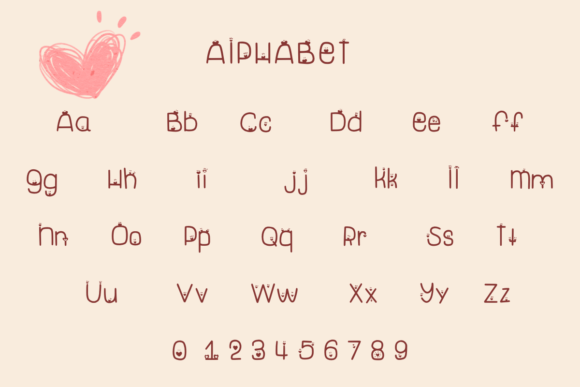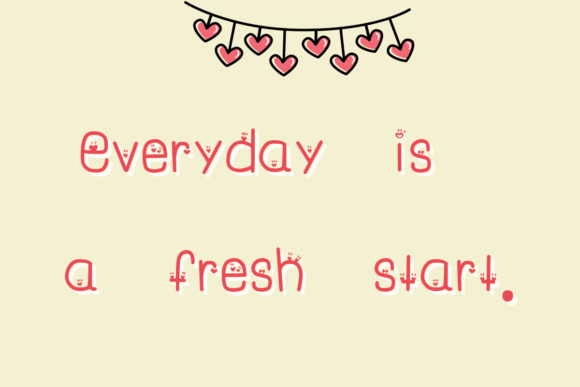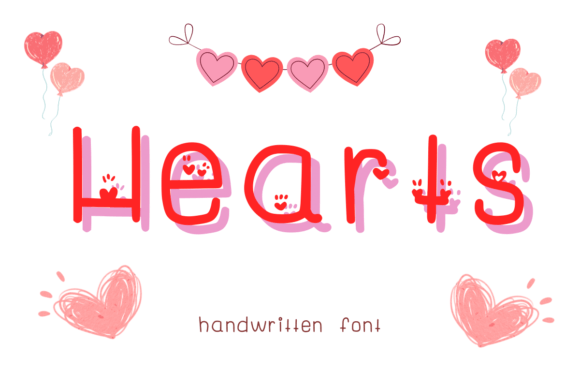
Introducing Hearts Font: The Perfect Addition to Your Creative Projects
Are you looking for a font that can add a touch of warmth and personality to your designs? Look no further than Hearts Font! This lovely, fun, and simple handwritten font is perfect for a wide range of creative projects, from crafting and DIY tutorials to social media graphics and marketing materials.
The Friendly Feel of Hearts Font
Hearts Font has a friendly feel that makes it incredibly flexible and versatile. Its handwritten style is approachable and inviting, making it perfect for designs that need to connect with their audience on a personal level. Whether you’re creating a tutorial, a social media post, or a marketing campaign, Hearts Font is sure to make your message feel more relatable and engaging.
Endless Variations and Creative Possibilities
One of the best things about Hearts Font is its endless variations and creative possibilities. With its simple yet playful design, you can use it to create a wide range of unique and eye-catching graphics. Try pairing it with bold colors and fun illustrations for a playful look, or use it on its own for a more subtle and sophisticated feel.
Hearts Font is a perfect addition to any designer’s or crafter’s toolkit. Its flexibility and versatility make it ideal for a wide range of creative projects, from digital graphics and social media posts to craft tutorials and DIY projects. Whether you’re a seasoned pro or just starting out, Hearts Font is sure to inspire your creativity and help you bring your ideas to life.
Trendy and Timeless
Hearts Font has a trendy yet timeless feel that makes it perfect for designs that need to be both modern and classic. Its handwritten style is reminiscent of traditional crafts and DIY projects, while its simple and clean design ensures it will never go out of style.
Tips for Using Hearts Font
Here are a few tips for getting the most out of Hearts Font:
- Experiment with different colors and illustrations to add personality and interest to your designs.
- Use Hearts Font to create eye-catching headings and titles that grab attention.
- Pair Hearts Font with other fonts for a unique and creative look.
- Don’t be afraid to get creative and try new things – Hearts Font is perfect for experimenting with different styles and techniques.
In conclusion, Hearts Font is a lovely, fun, and simple handwritten font that is perfect for a wide range of creative projects. Its friendly feel, endless variations, and trendy yet timeless design make it a must-have for designers and crafters. Whether you’re looking to add a personal touch to your designs or simply want to try something new, Hearts Font is sure to inspire your creativity and help you bring your ideas to life.